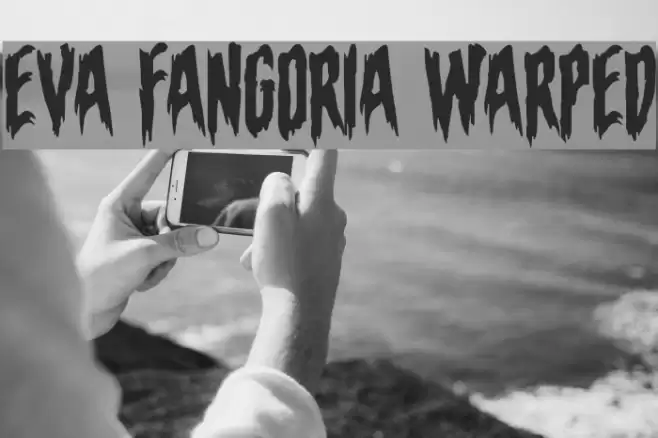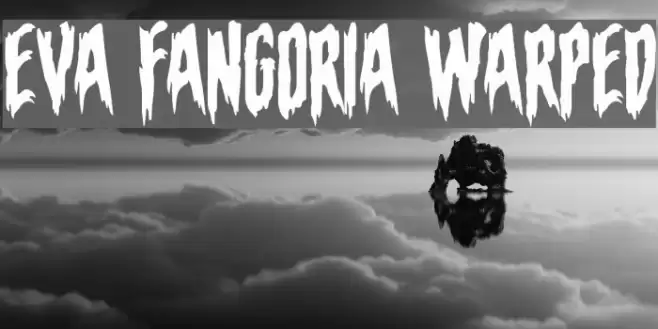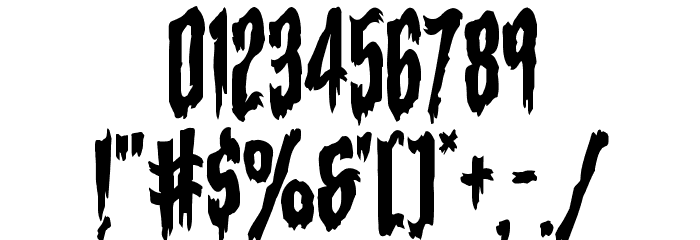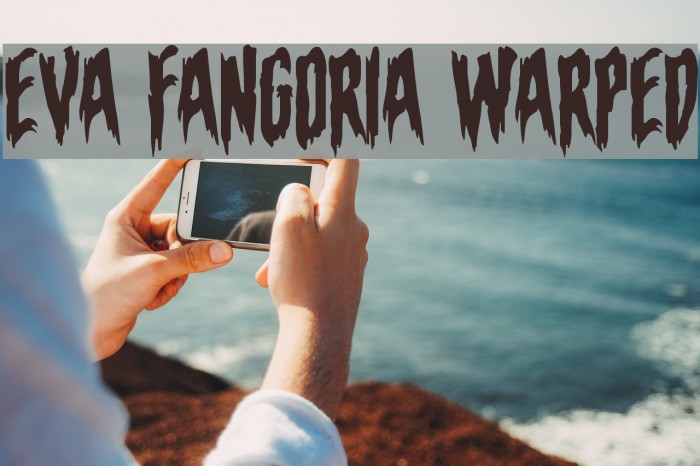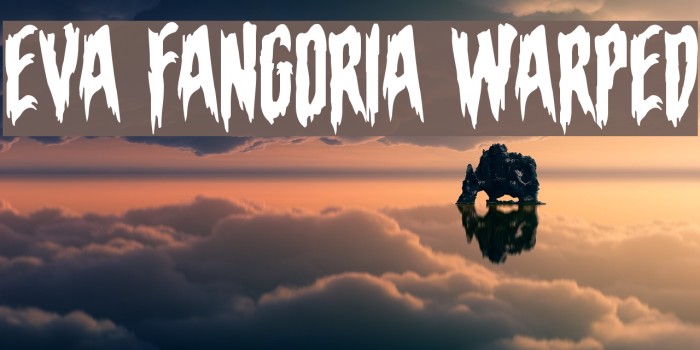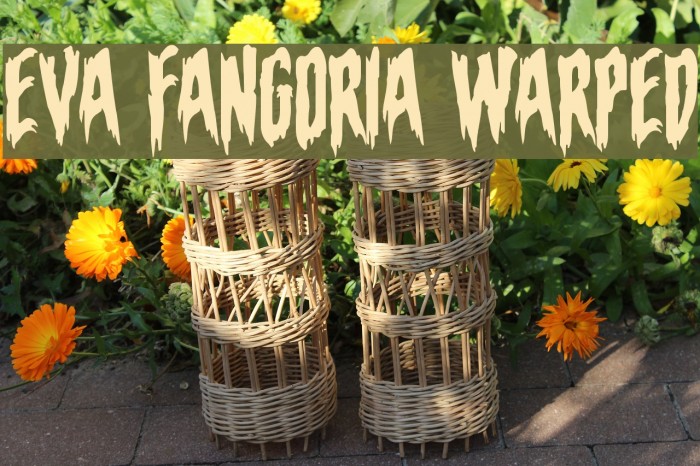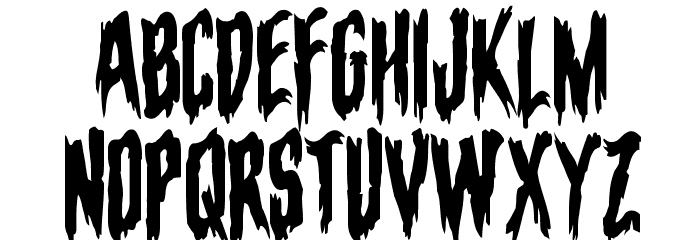
Eva Fangoria Warped Font
Eva Fangoria Warped Description
This font features a bold, jagged design that evokes a sense of horror and intensity. The characters are irregular and appear as if they are dripping or melting, adding a dynamic and unsettling aesthetic. The uppercase and lowercase letters maintain a consistent style, with sharp edges and uneven lines that create a chaotic yet cohesive look. Numbers and special characters follow the same theme, ensuring a uniform appearance across all text elements. The font's unique style makes it ideal for projects that require a dramatic and eye-catching typeface.
A bold, jagged font with a horror-inspired, dripping effect from Uncategorized fonts.
- Proposed Projects: Ideal for Halloween-themed designs, horror movie posters, spooky event invitations, and any project requiring a dramatic, eye-catching typeface.